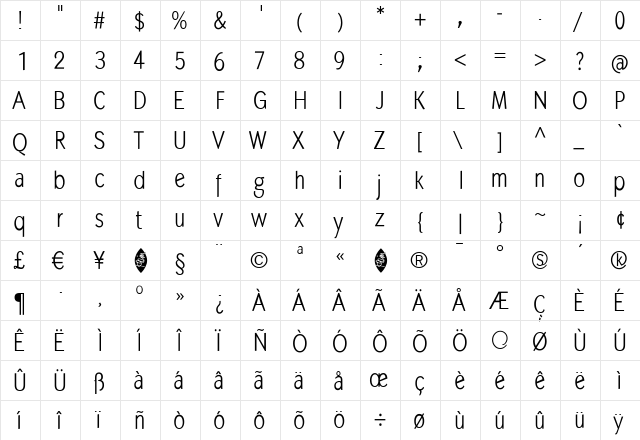
MKAbel Regular
Design Context for MKAbel Typeface
MKAbel takes a measured approach to typography — its balanced proportions and neutral character make it a reliable workhorse for both digital and print work.